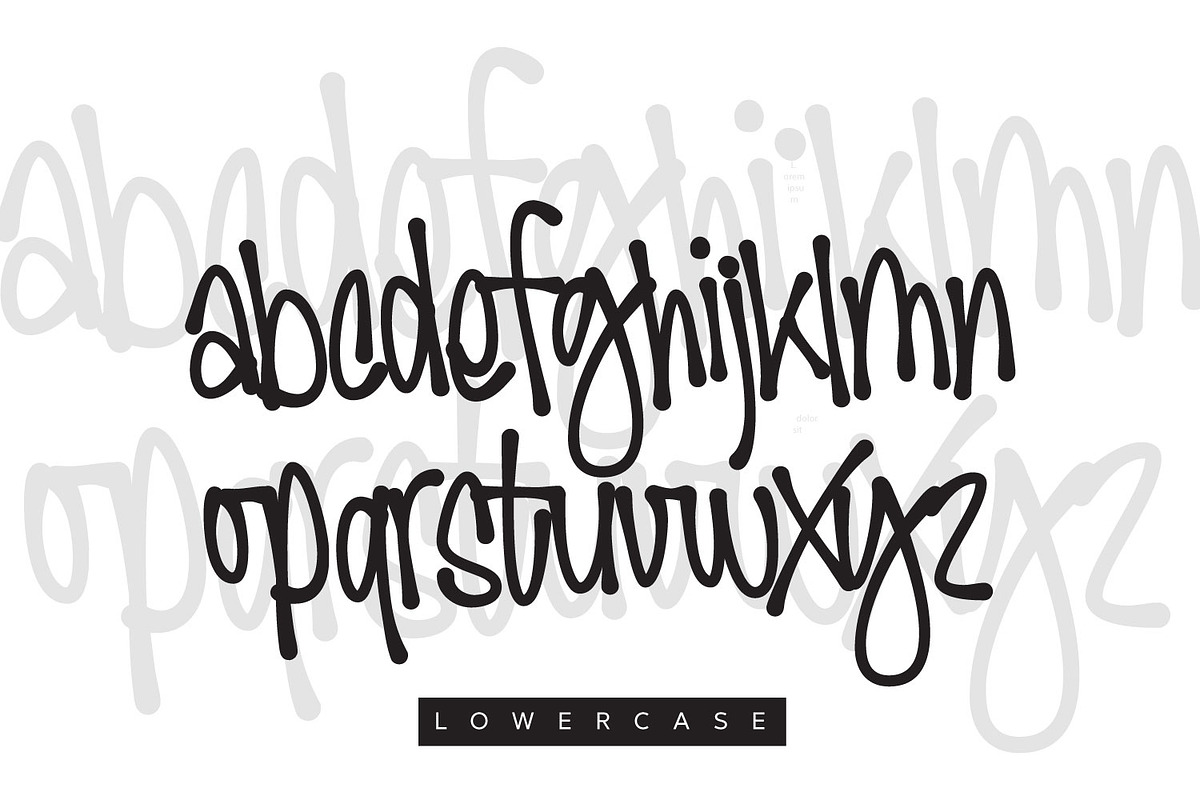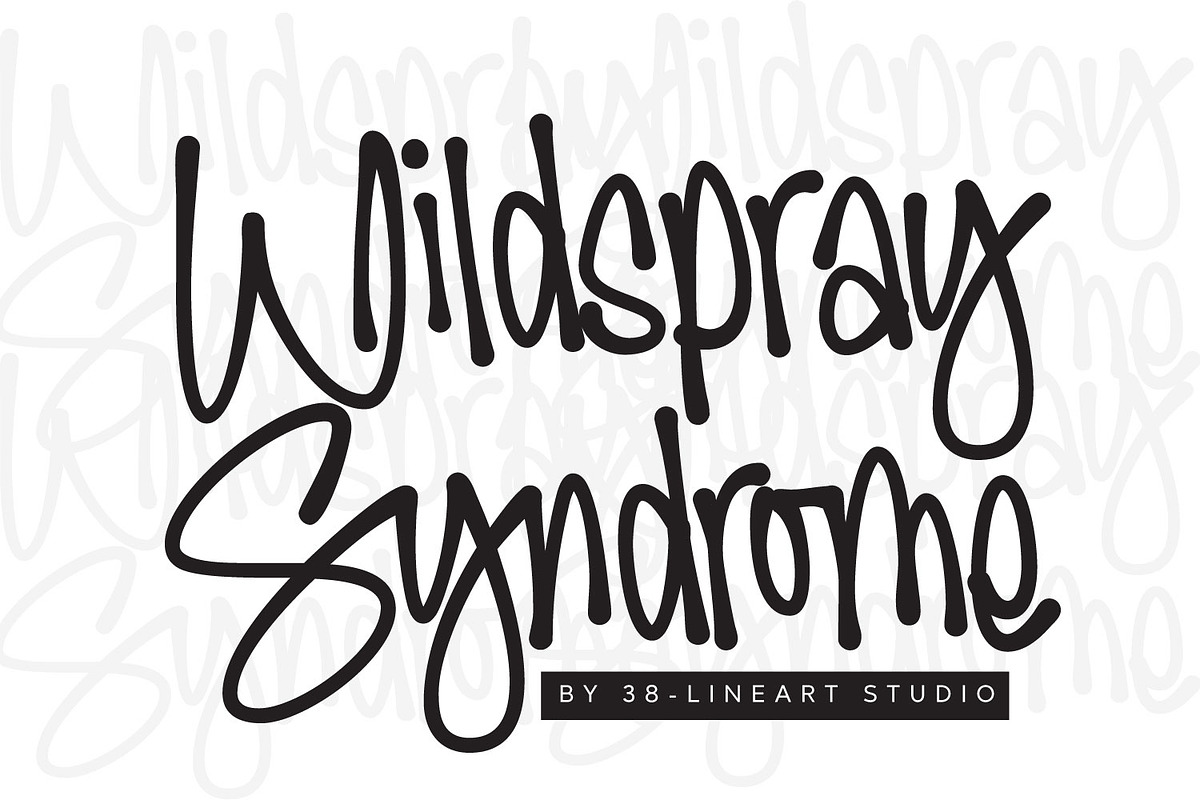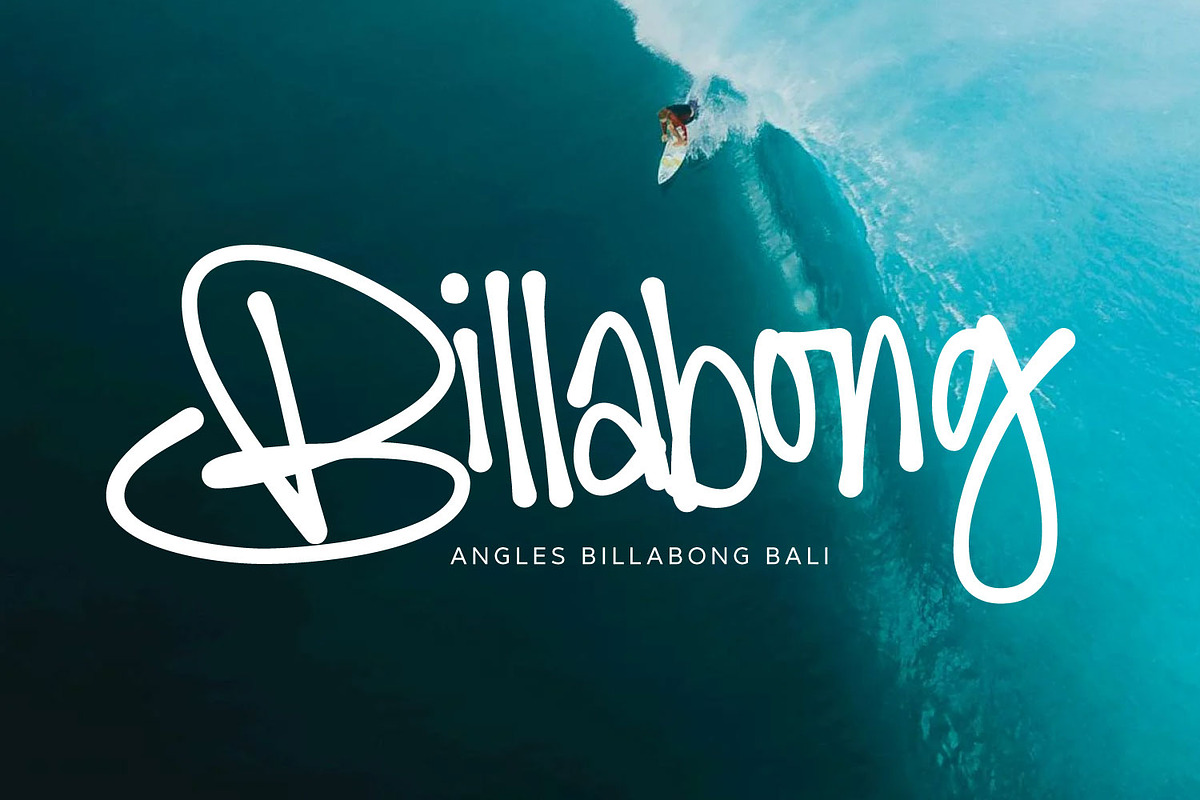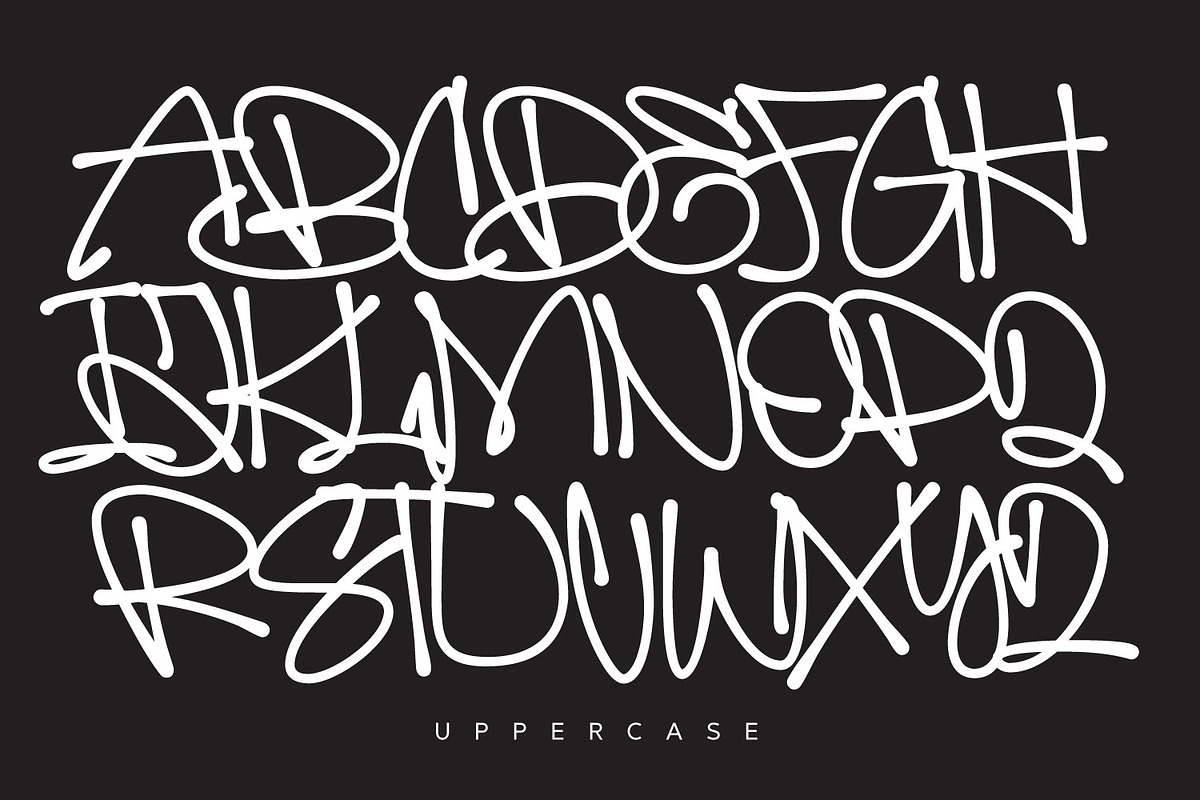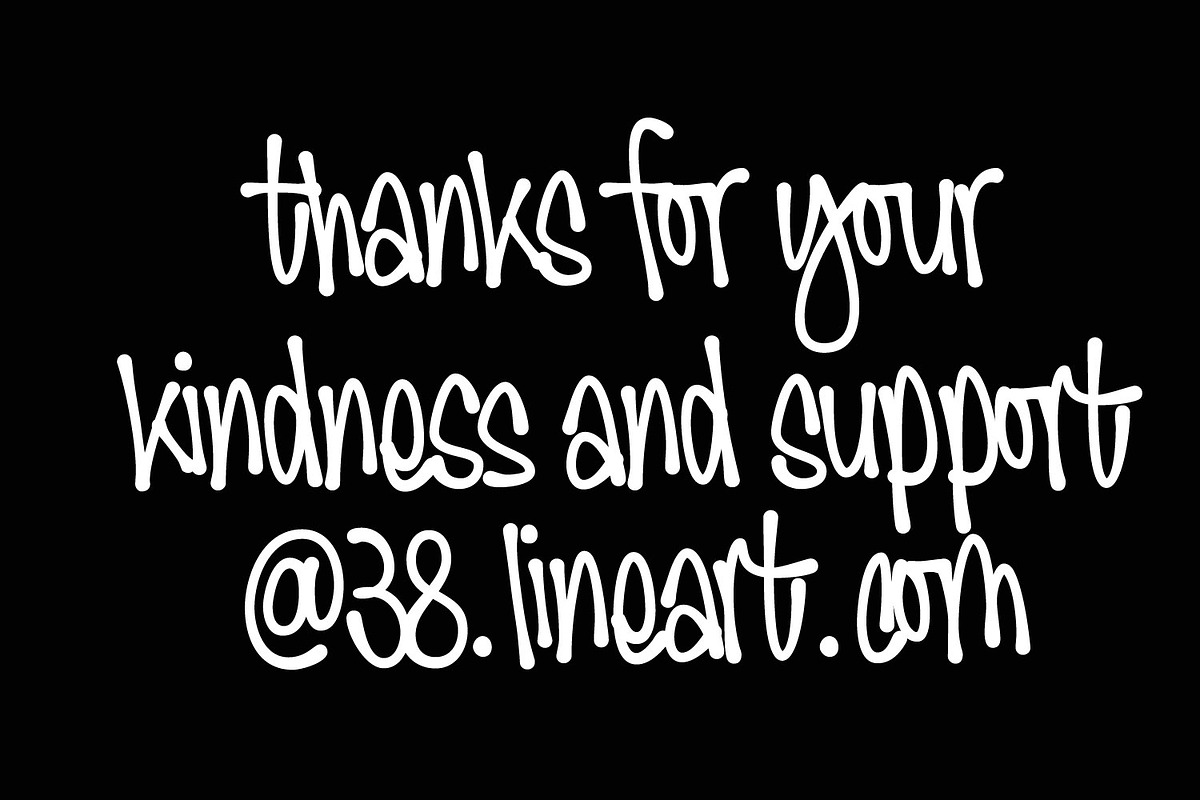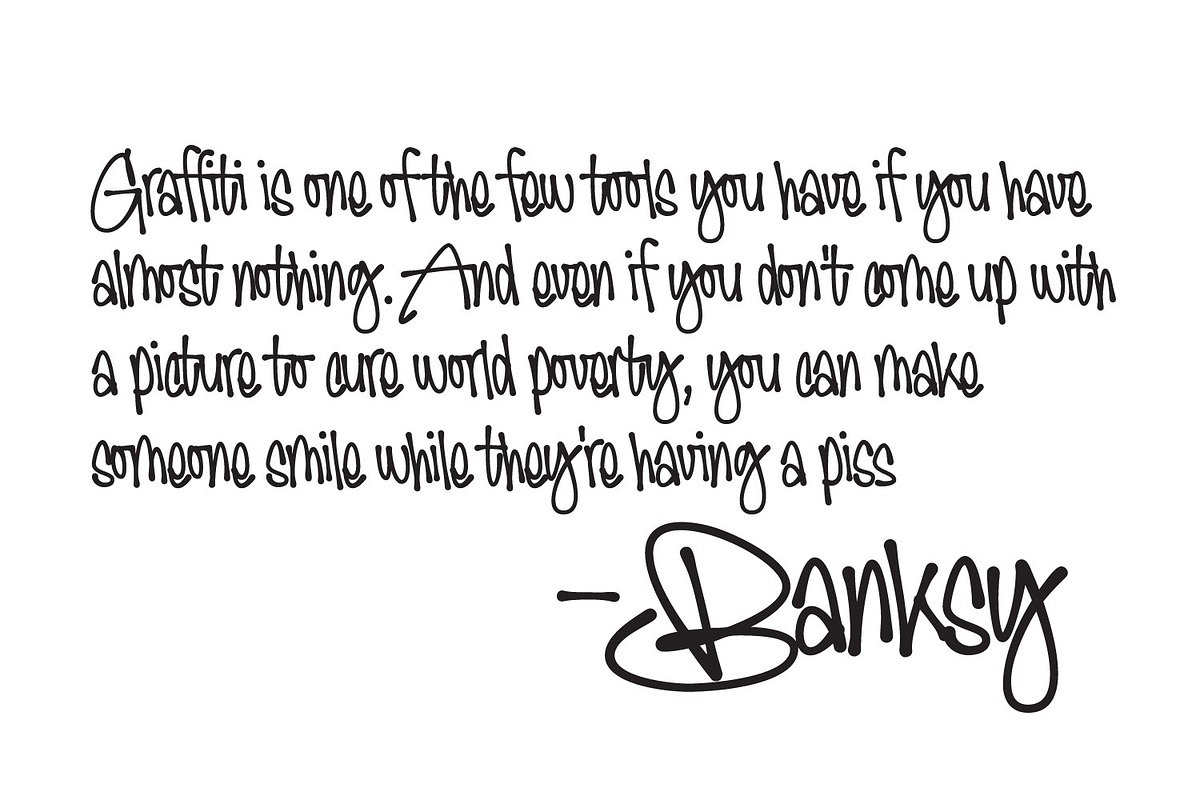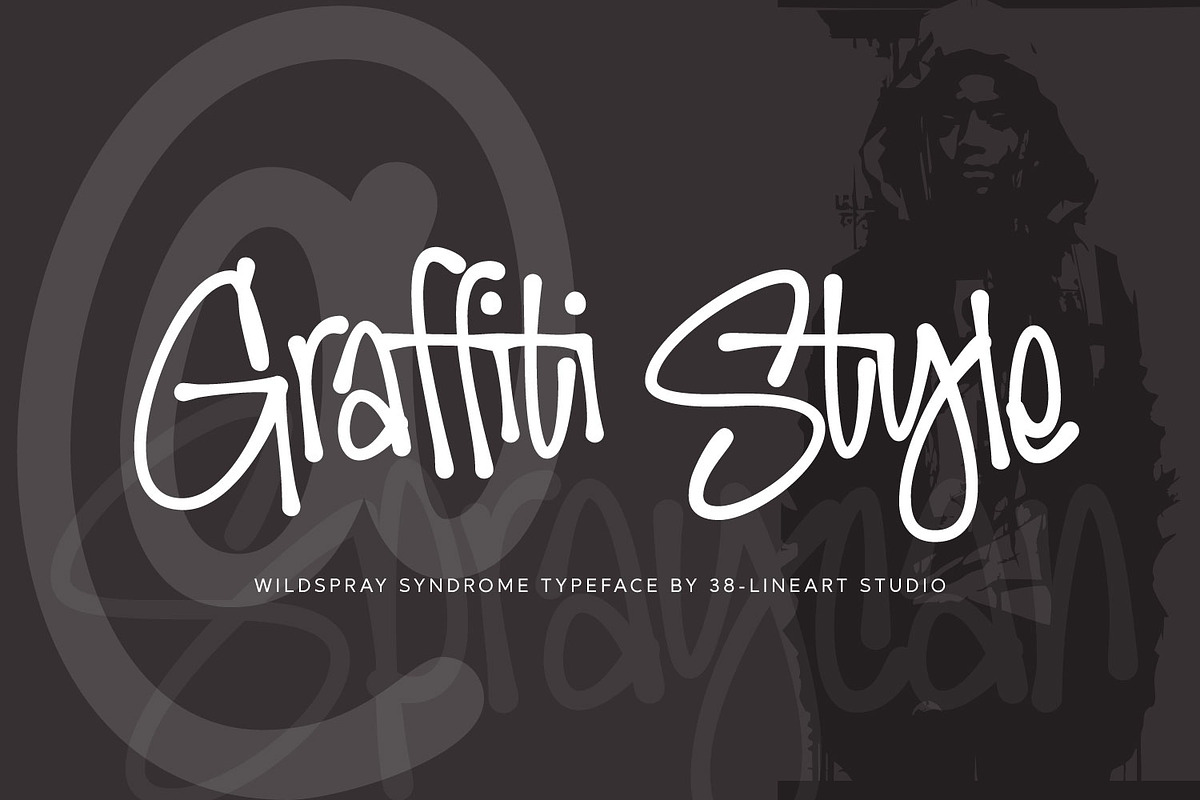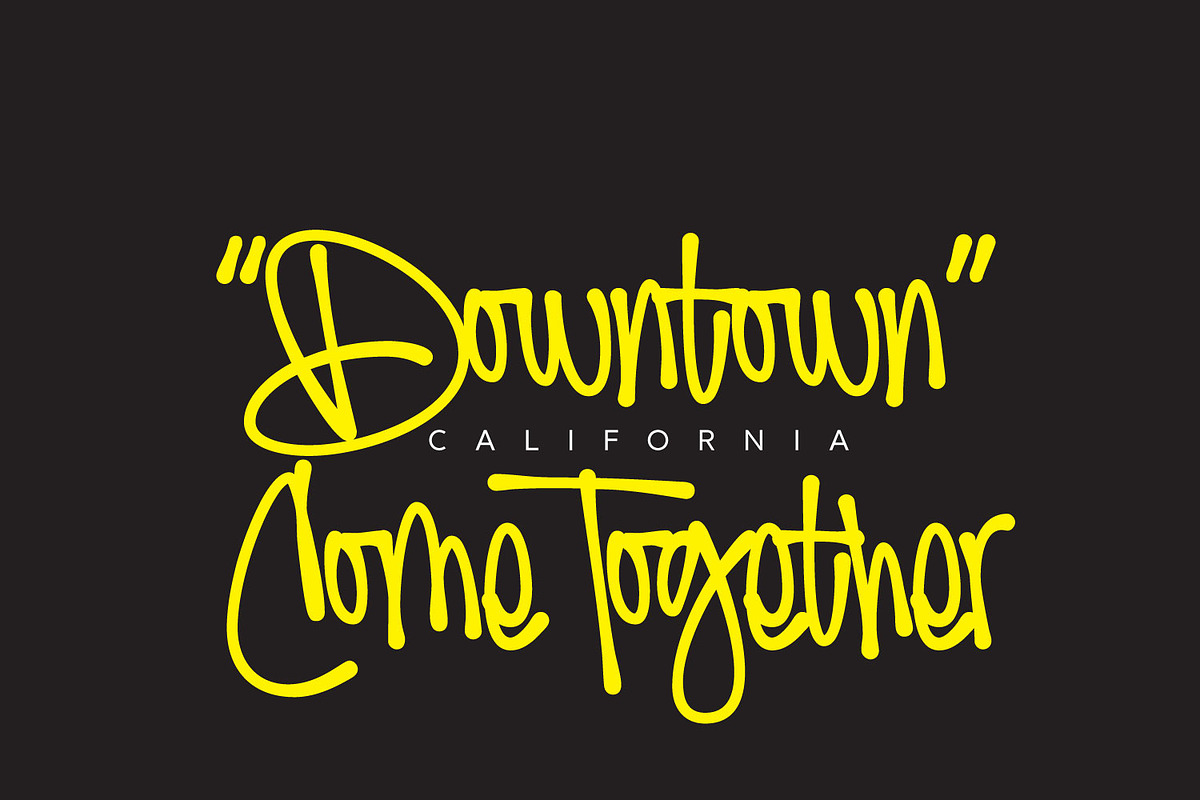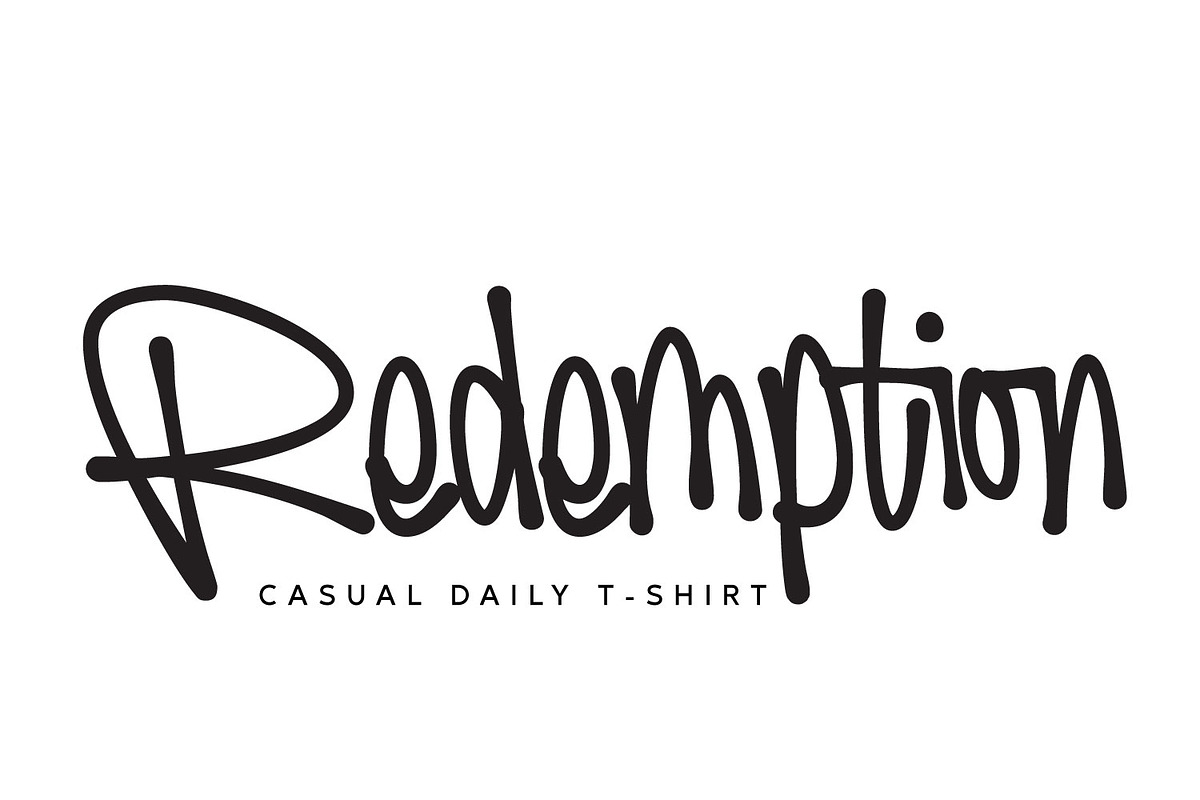
Wildspray Syndrome
Wildspray Syndrome is a vibrant and dynamic graffiti font that captures the essence of urban street art. With its bold strokes, expressive curves, and distinctive spray-paint aesthetics, this font is designed to bring energy and creativity to any project. Every character reflects the raw spontaneity of graffiti, mimicking the natural flow of spray paint on walls. WildSpray’s artistic style makes it perfect for a wide range of applications, from posters and album covers to streetwear branding and digital art. Inspired by the lively spirit of street culture, this font is a celebration of freedom and self-expression. Whether you’re designing for urban events, bold branding, or artistic projects, WildSpray delivers an unmistakable visual impact that speaks to the heart of contemporary creativity.